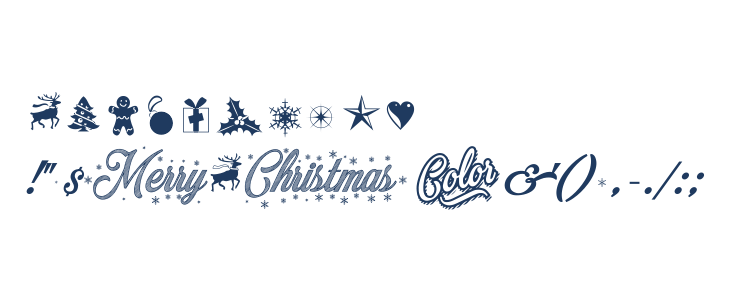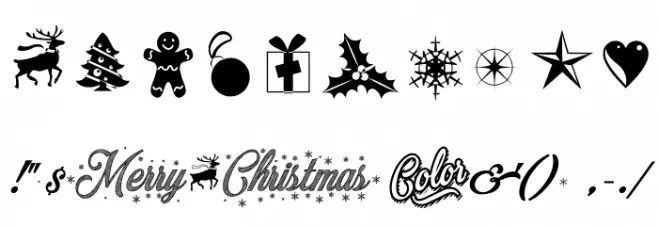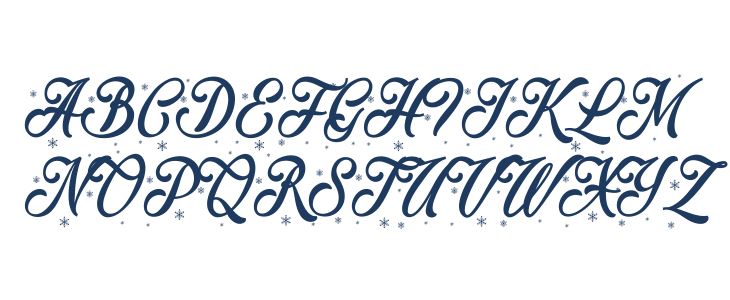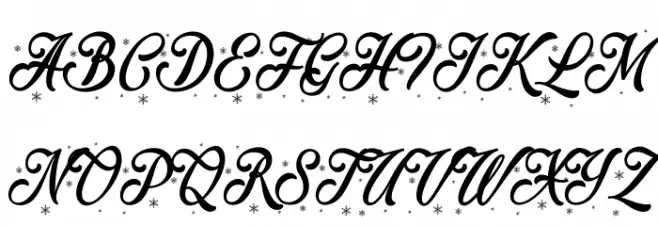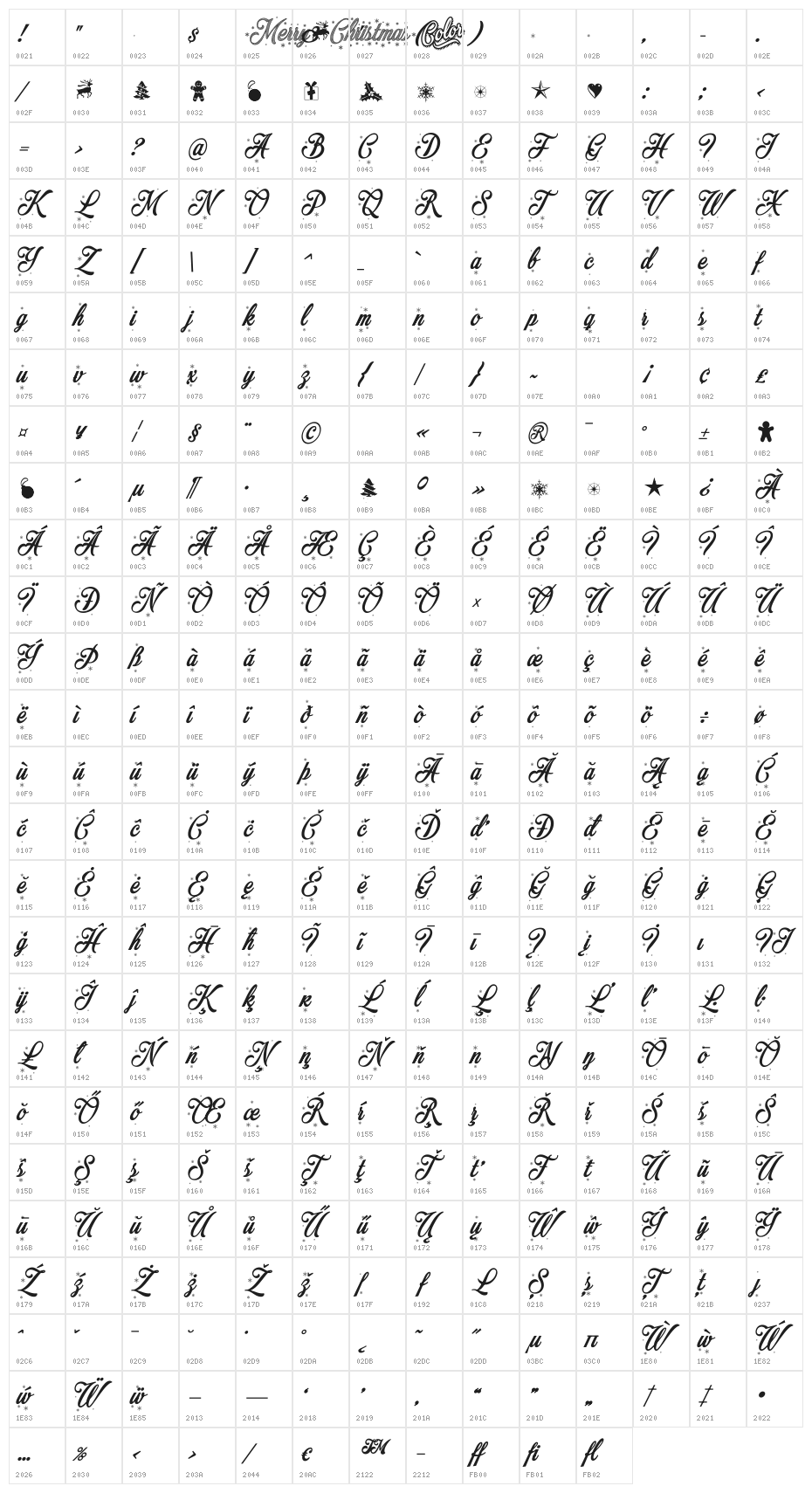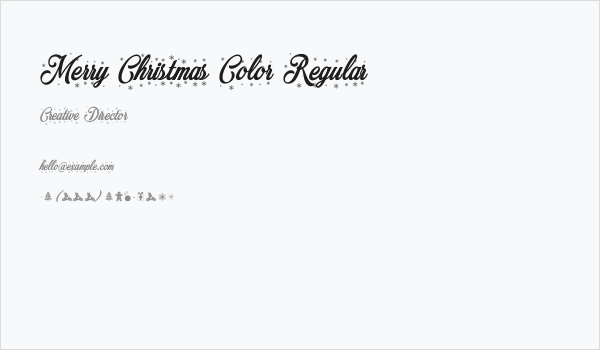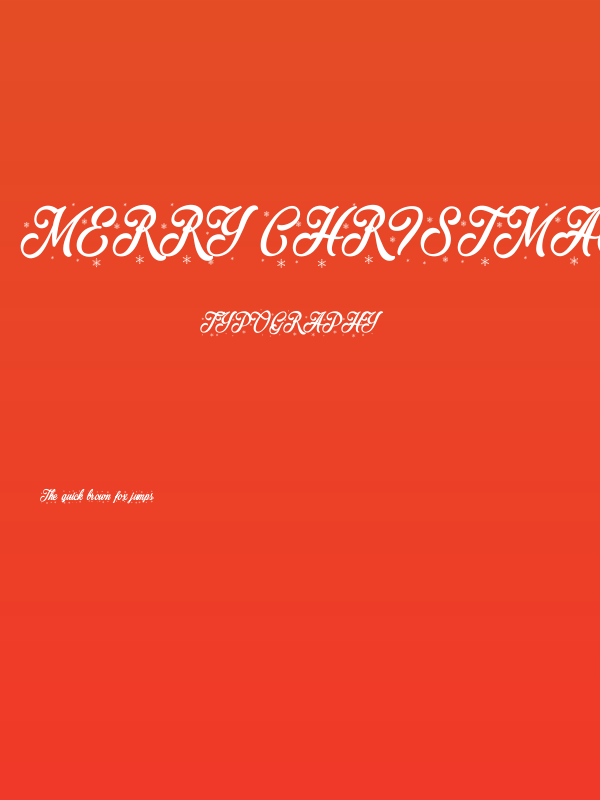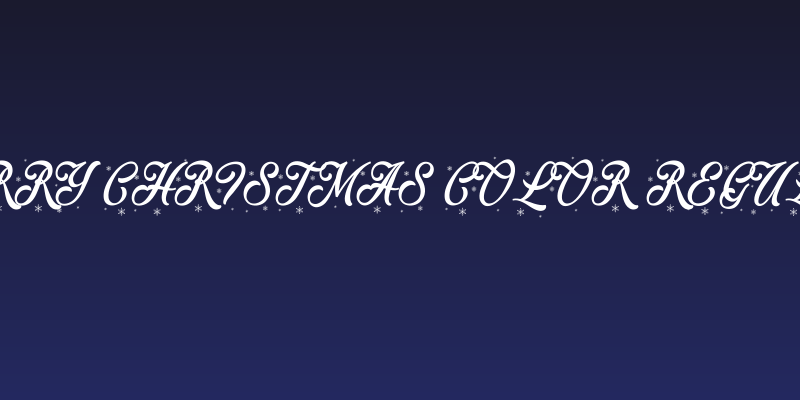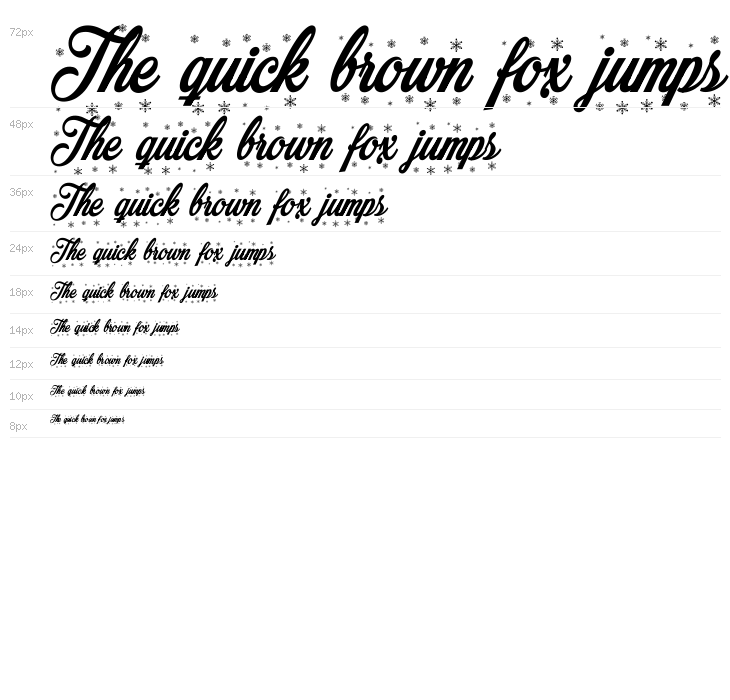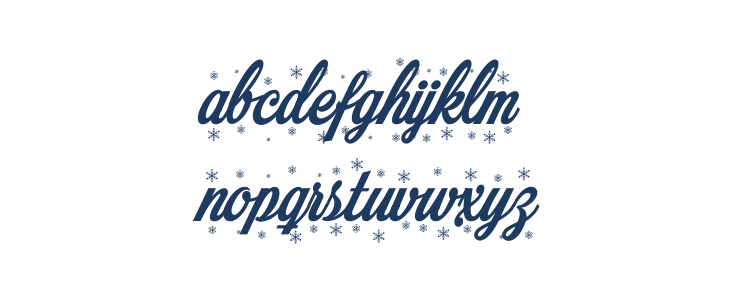
Merry Christmas Color Regular Font
Merry Christmas Color Regular Description
A festive script font with elegant, flowing letterforms and decorative snowflake accents, featuring both uppercase and lowercase alphabets, numerals, punctuation, and holiday-themed icons.
| Overall Style | Decorative, Festive, Holiday |
| Use Case | Headlines, Logos, Greeting cards, Decorative text |
| Proposed Projects | Holiday cards, festive invitations, seasonal branding, event posters, gift tags. |